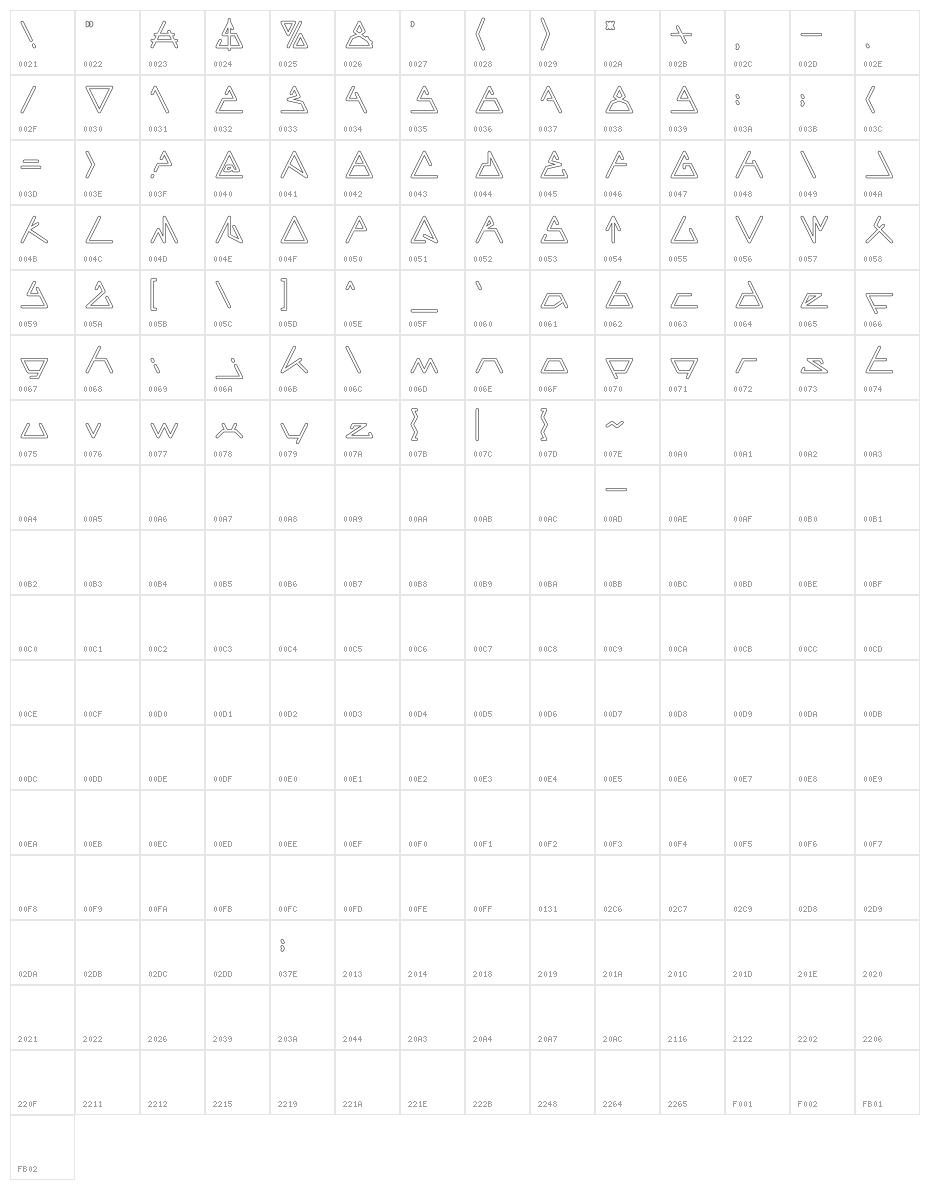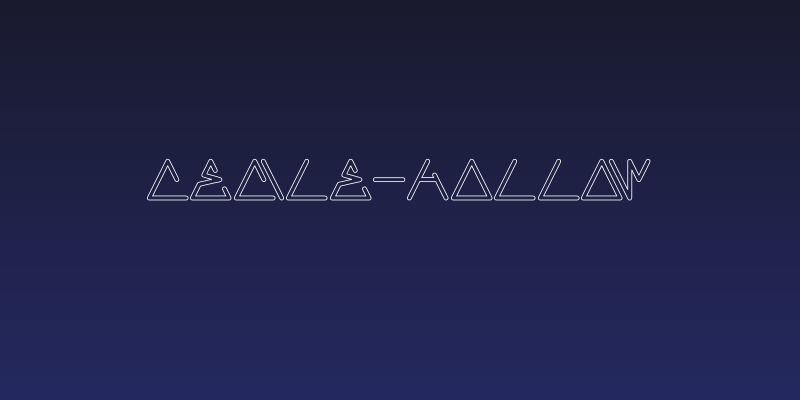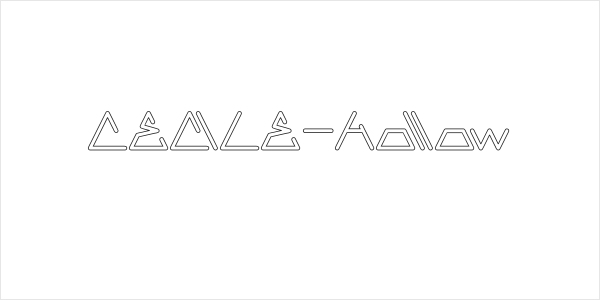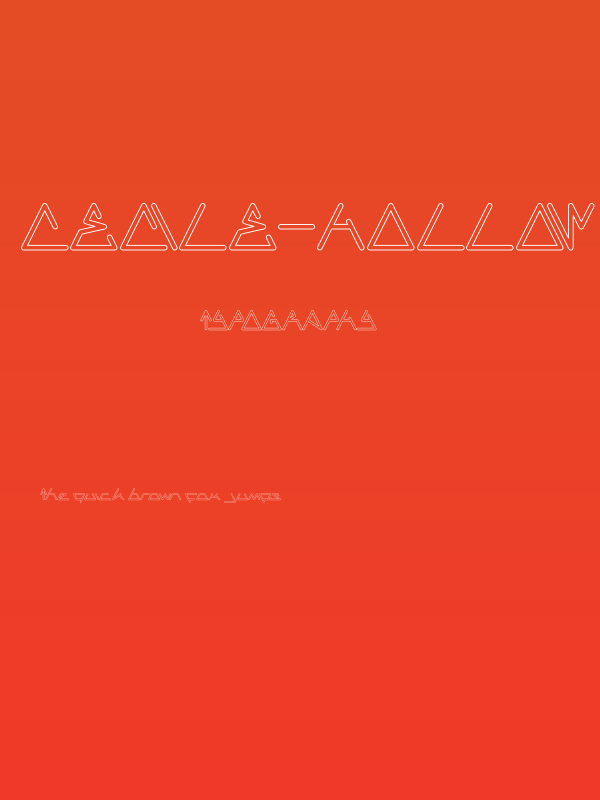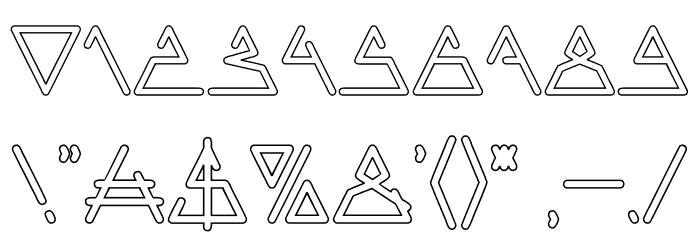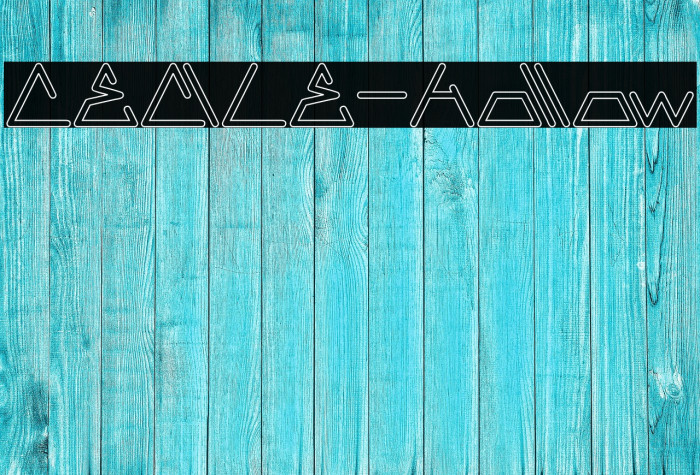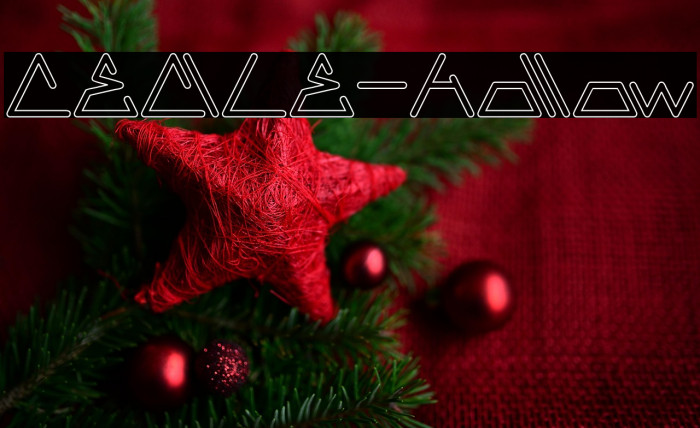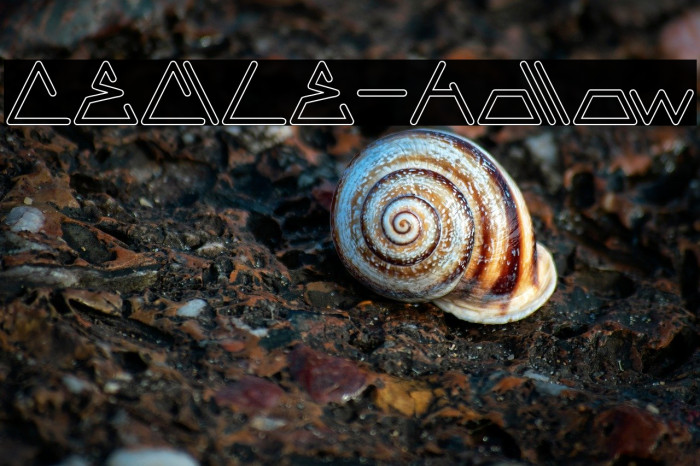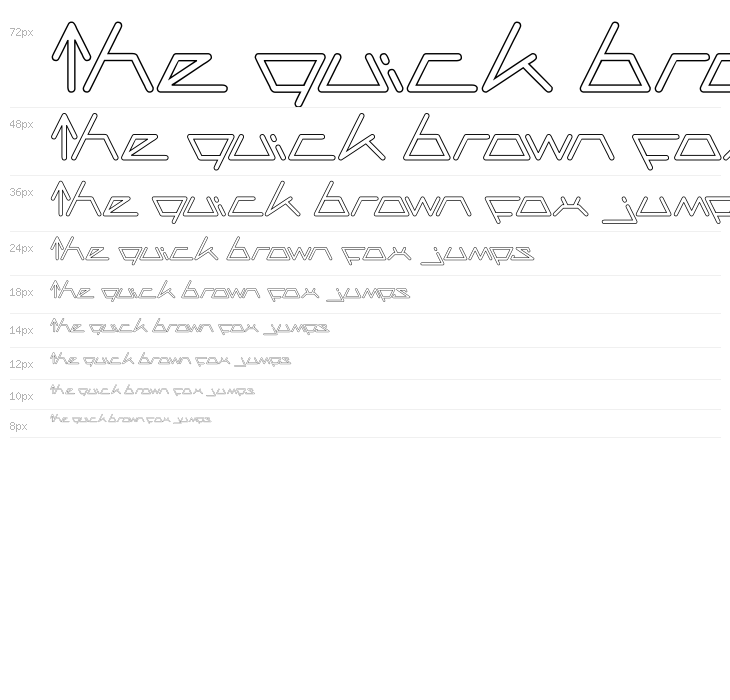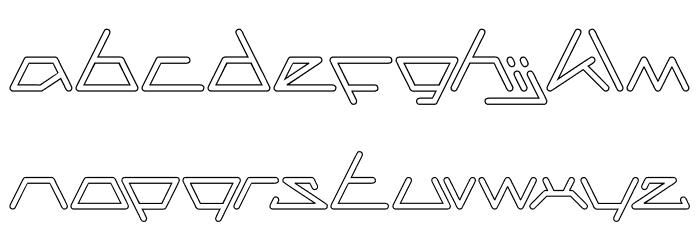
CECILE-Hollow Font
CECILE-Hollow Description
This font features a unique hollow design with geometric and angular shapes. Each character is outlined, creating a futuristic and tech-inspired appearance. The lines are consistent in thickness, contributing to a uniform look across all characters. The uppercase and lowercase letters maintain a similar style, with distinct angles and sharp edges. Numbers and special characters follow the same design principles, ensuring cohesion throughout the set. This font's hollow nature allows for creative layering and color play, making it versatile for various design applications.
| Proposed Projects | Ideal for sci-fi themed projects, tech branding, modern posters, and digital artwork. |